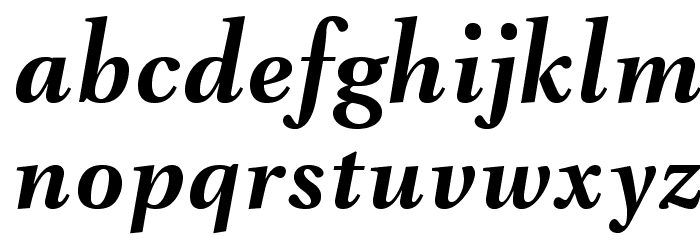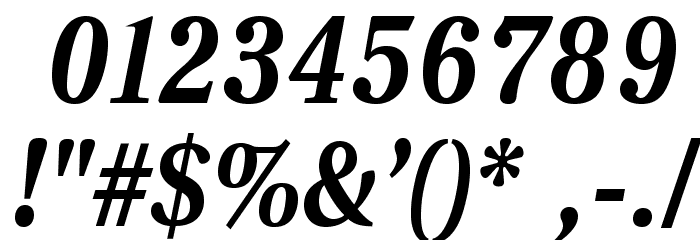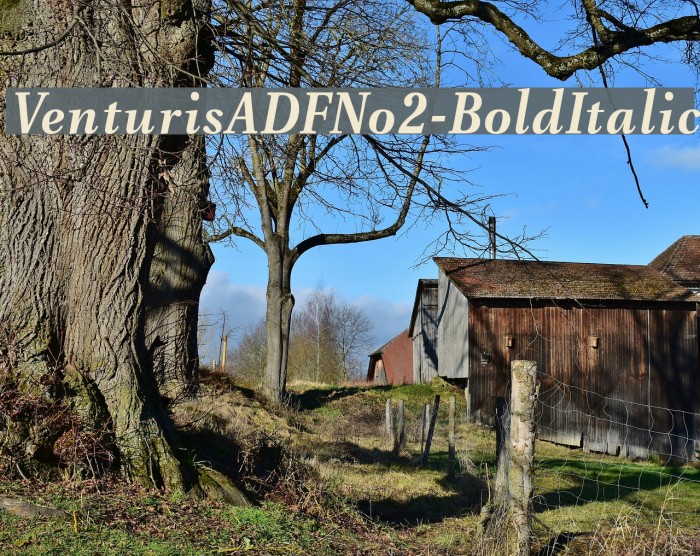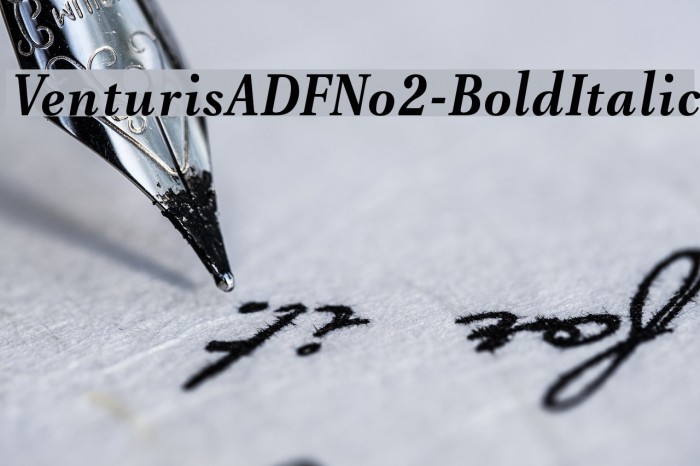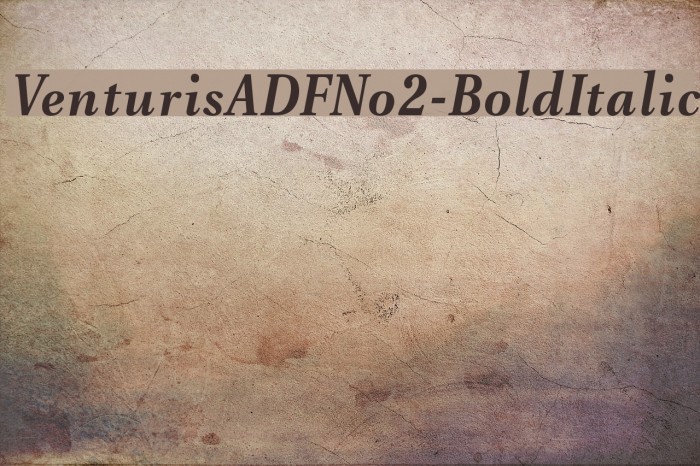
VenturisADFNo2-BoldItalic Font
This font features a classic serif style with a bold and italicized appearance, giving it a strong yet elegant look. The characters are well-defined with a slight slant, enhancing readability while maintaining a sophisticated aesthetic. The serifs are pronounced, adding a touch of traditional elegance, while the bold weight ensures visibility and impact. The italicization adds a dynamic flow to the text, making it suitable for emphasis in various contexts. The numbers and special characters are consistent with the overall style, providing a cohesive look across all elements.
A bold, italic serif font with a classic and elegant style.
- Proposed Projects: Ideal for book covers, formal invitations, branding materials, and editorial design.
- Category: Serif
- Overall Style: Classic
- Use Case: Headlines, Body text, Logos